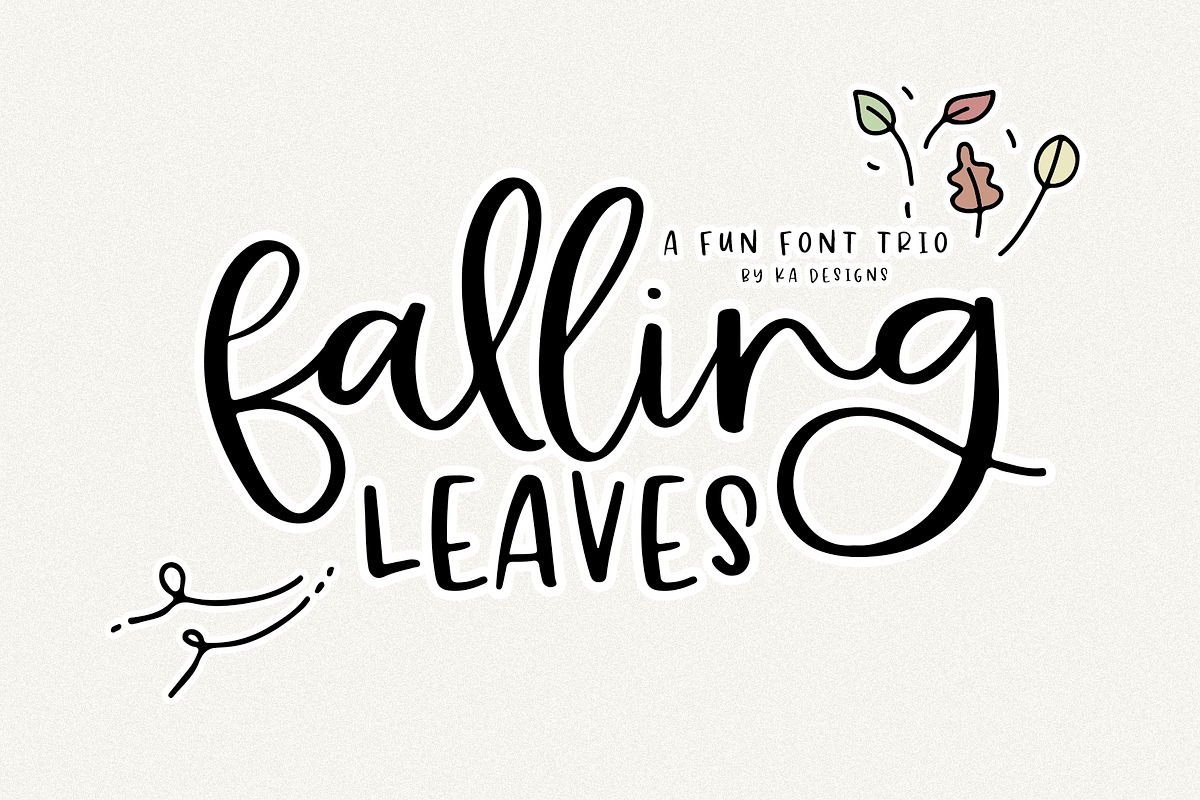
The Falling Leaves | Script Font Trio Free Download is a beautiful set of three complementary script fonts that capture the warmth and elegance of autumn. Perfect for seasonal branding, wedding invitations, greeting cards, cozy product packaging, and lifestyle blogs, this trio brings charm, flow, and variety to your design toolkit.
Each script in the trio has its own personality—ranging from soft and romantic to playful and handwritten—making it easy to mix and match for a custom look. The font set includes stylistic alternates, ligatures, and multilingual support to give your work a polished and personal touch.